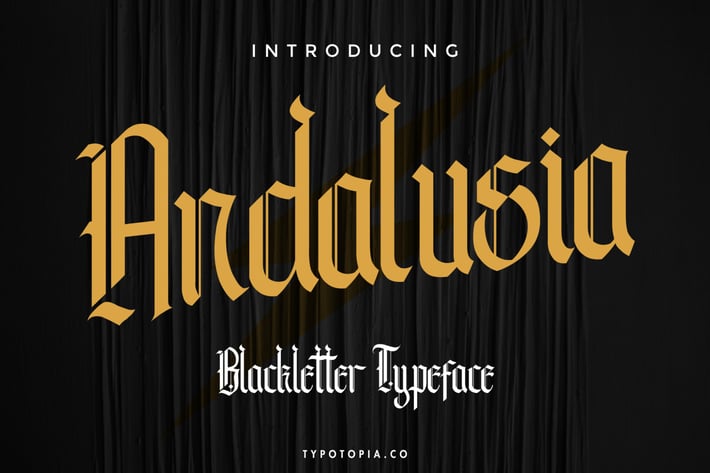
Andalusia – The Blackletter Typeface
Introducing Andalusia – The Blackletter Typeface a unique Blackletter Font for your Design. This perfect for the purposes of designing templates, brochures, videos, advertising branding, logos and more.
+ Multilingual Support
Fonts include multilingual support for; Afrikaans, Albanian, Catalan, Czech, Danish, Dutch, English, Estonian, Finnish, French, German, Hungarian, Italian, Latvian, Lithuanian, Norwegian, Polish, Portugese, Slovak, Slovenian, Spanisch, Swedish.